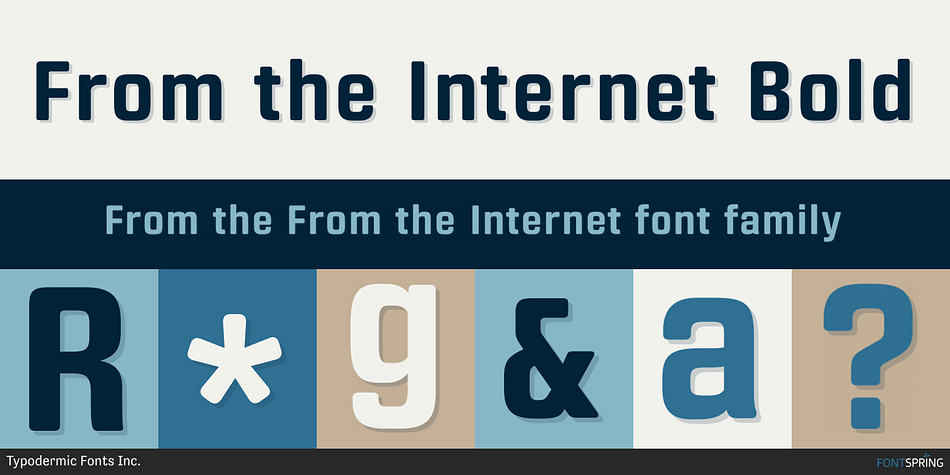
From the Internet Bold
From the Internet is a sans serif font family. This typeface has four styles and was published by Typodermic Fonts Inc.
Introducing From the Internet, a sleek and pragmatic sans-serif typeface that exudes technical sophistication. The narrow and square shapes of this typeface create a compact and organized appearance, perfect for modern industrial design. With softened edges, the boxy letterforms have a sense of approachability that is sure to draw in any reader.
From the Internet’s austere and uncomplicated style ensures that your message is delivered with clarity and precision. Its lack of intricate detail prevents any distractions, keeping the focus on the essential message. This typeface avoids clichés, ensuring that your designs are always fresh and unique, without any conspicuous sci-fi influences.
This font’s versatility is enhanced by the “stylistic alternatives” feature available in OpenType-savvy applications, allowing for access to alternate versions of the “f” and “t” letters. From the Internet offers a range of styles, including Regular, Italic, Bold, and Bold Italic, each with its unique personality.
Whether you’re looking to create sleek tech manuals or modern business presentations, From the Internet is the perfect typeface to convey your message with sophistication and style. Its pragmatic and precise style ensures that your designs will always be on-trend and highly readable, making it an excellent choice for any designer looking to create an impact.